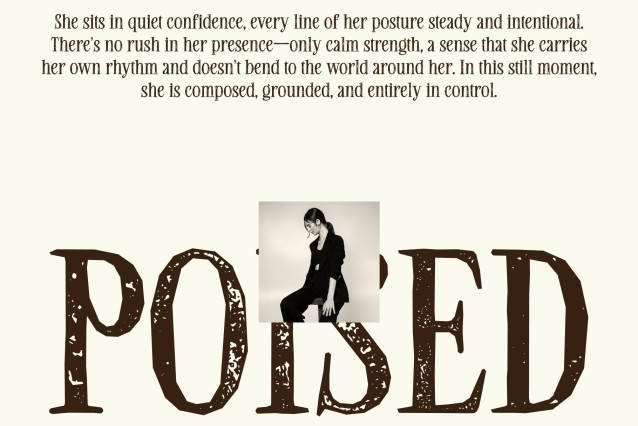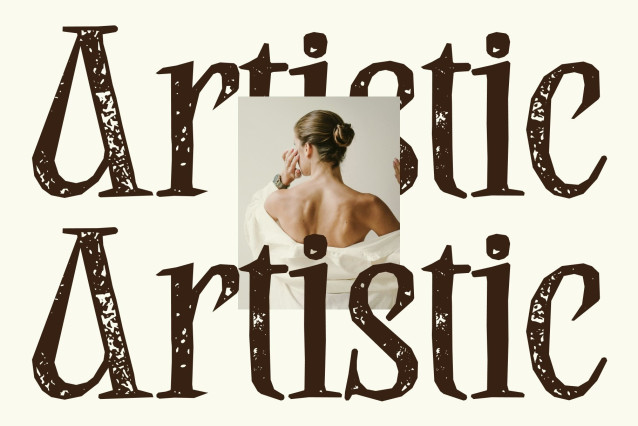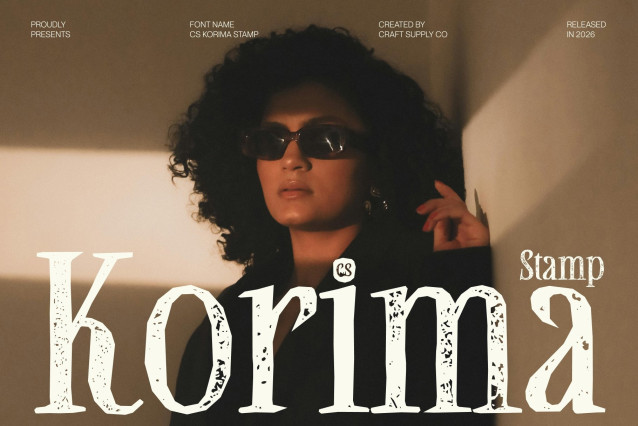
CS Korima Stamp Font
CS Korima Stamp – Elegant Font: The Essence of Refined Sophistication
Modern Serif with Refined Elegance and Stamp Texture
This is a contemporary serif font that captures the essence of elegance and sophistication. Its sleek, slender letterforms create a delicate yet impactful presence, while the stamp effect introduces subtle texture, soft imperfections, and an inked finish. This combination transforms the font into a refined serif with a vintage artistic character.
Timeless Balance of Sharp Serifs and Organic Imperfections
The beauty of this font lies in the harmony between sharp serifs and smooth, flowing curves. The stamped texture gently softens the precision of its forms, adding warmth and authenticity without compromising its polished structure. This blend of modern refinement and old-print character creates a timeless aesthetic suited for upscale magazines, luxury branding, and elegant promotional materials.
Versatile for High-End Design with Vintage Appeal
Designed for versatility, this font works beautifully across branding, editorial layouts, packaging, and digital projects that require a sophisticated tone. Its combination of clean serif structure and textured stamp finish delivers a graceful, high-class impression with a subtle retro touch.